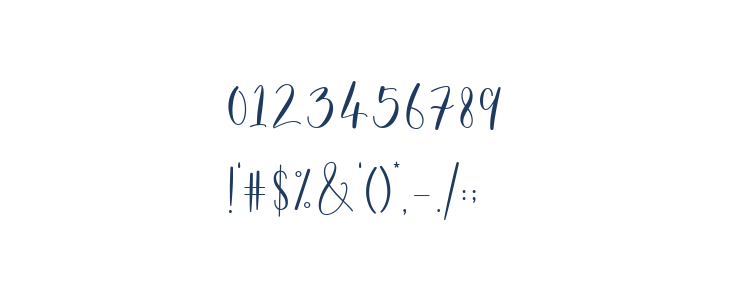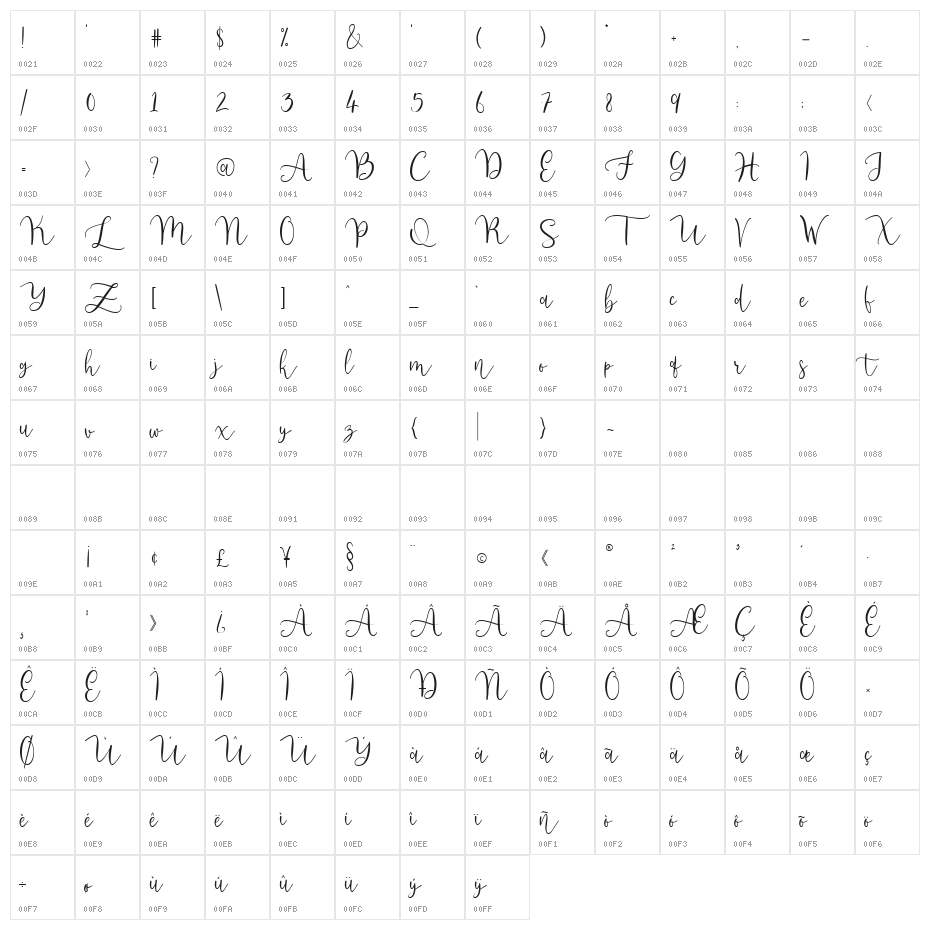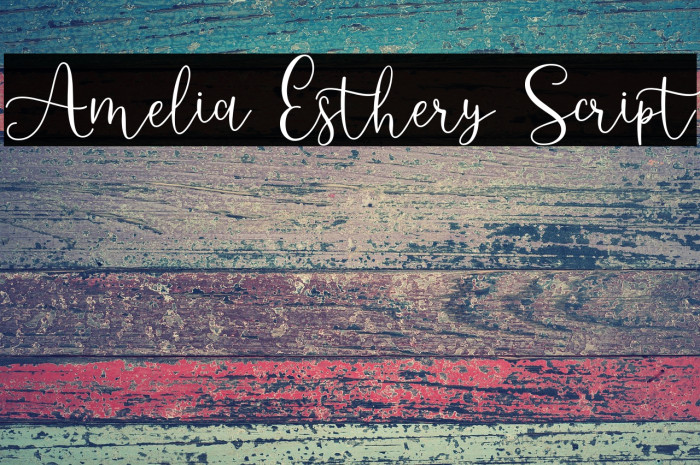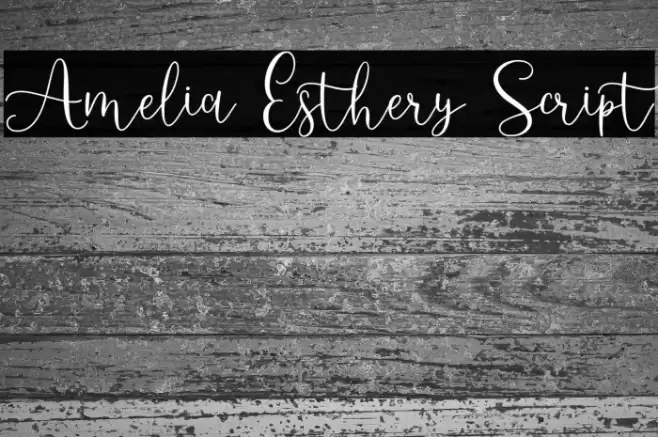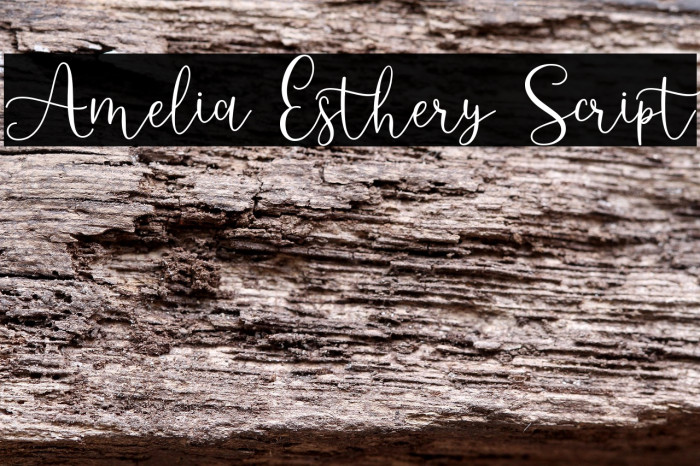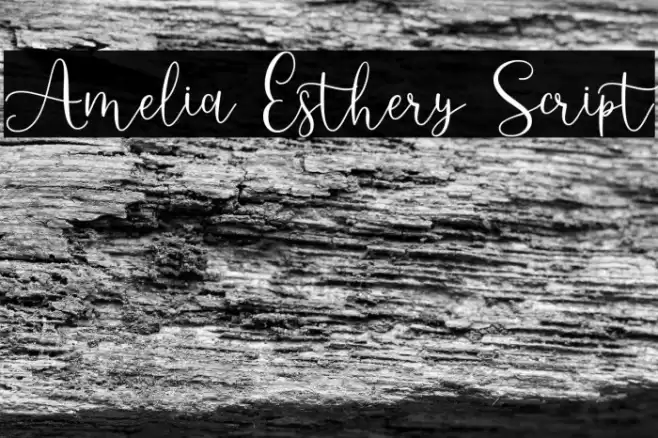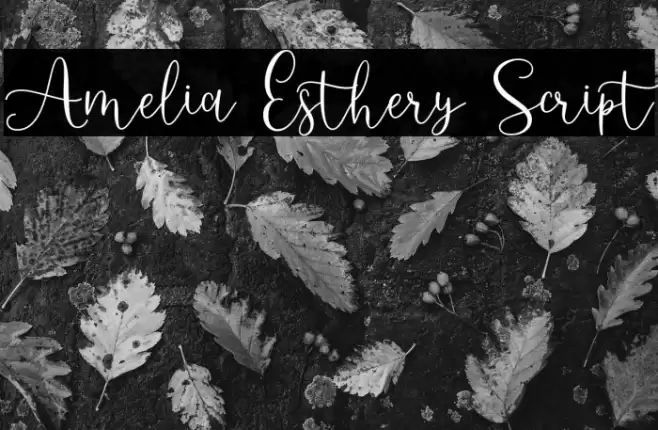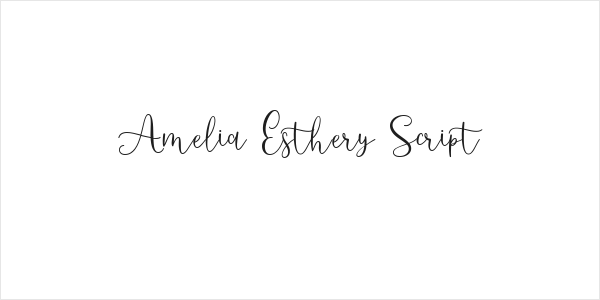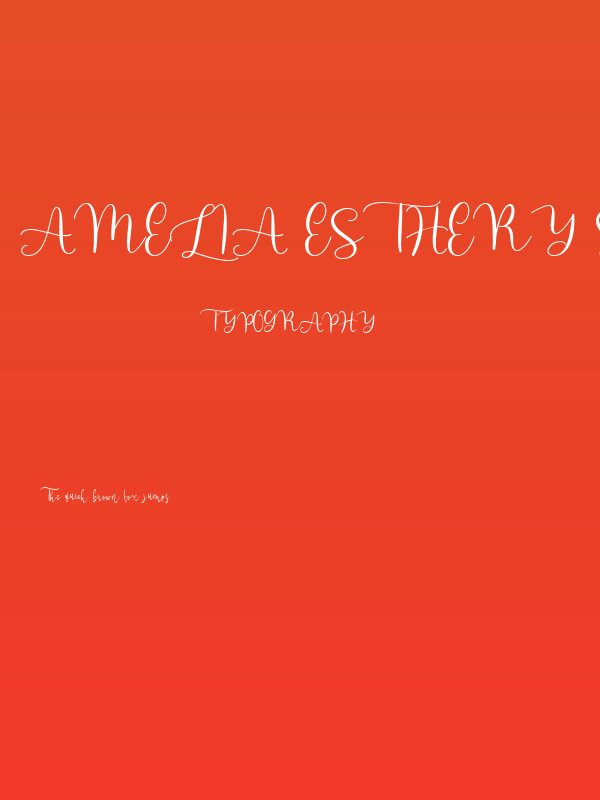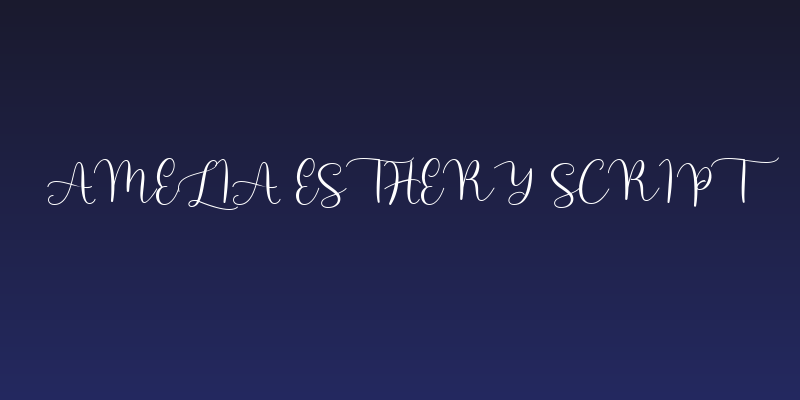
Amelia Esthery Script Font
Amelia Esthery Script Description
This elegant script font features flowing, cursive letterforms with a graceful and sophisticated appearance. The uppercase letters are characterized by sweeping curves and loops, adding a sense of fluidity and motion. The lowercase letters maintain a consistent style, with gentle connections between characters that enhance readability while preserving the script's decorative nature. The numerals are designed to complement the letters, with a similar emphasis on curves and fluid lines. Special characters are thoughtfully integrated, maintaining the overall aesthetic. This font exudes a sense of elegance and charm, making it suitable for a variety of creative applications.
| Use Case | Headlines, Invitations, Branding |
| Proposed Projects | Ideal for wedding invitations, greeting cards, branding, and elegant packaging designs. |